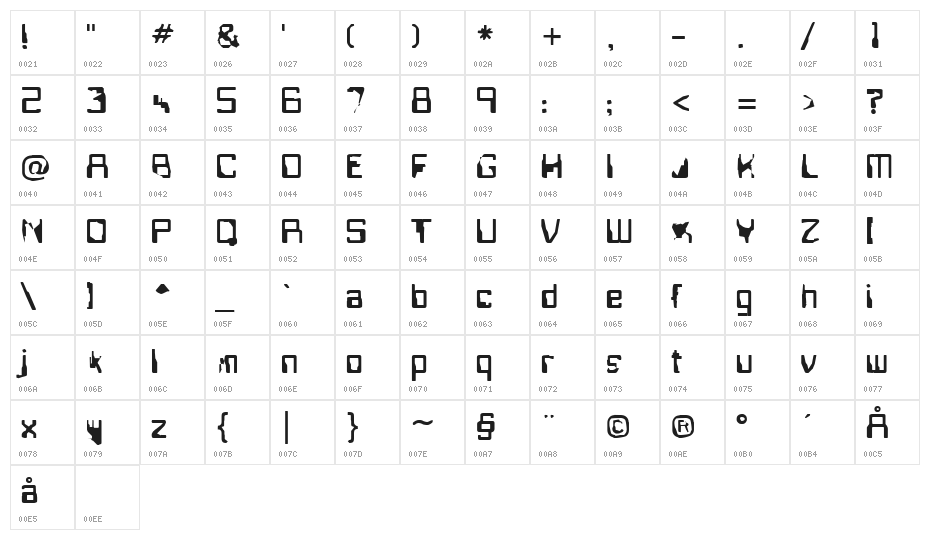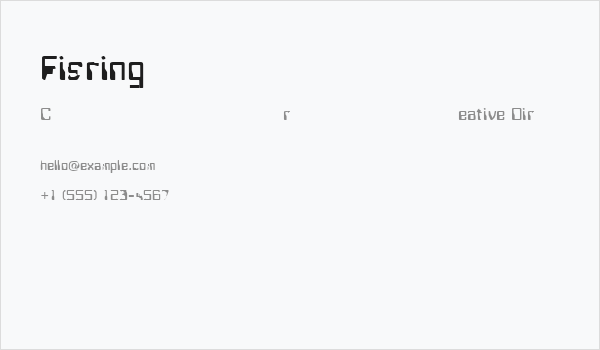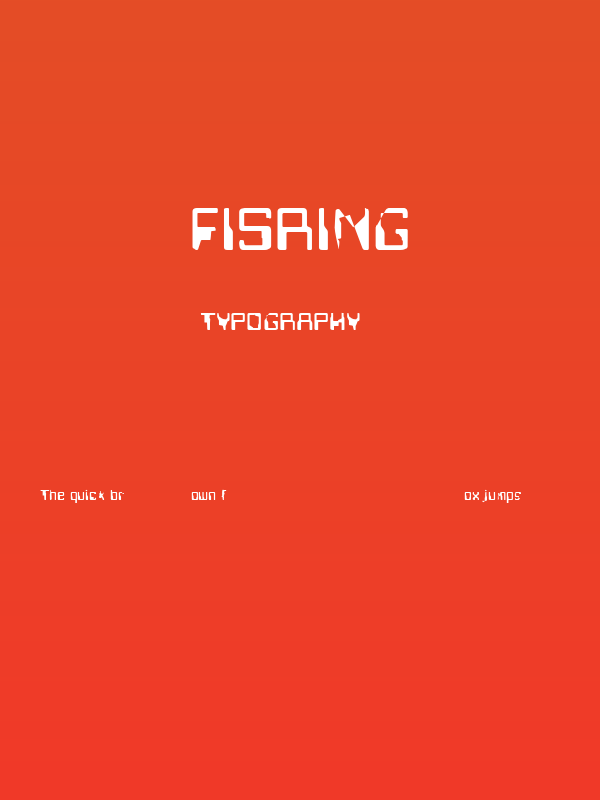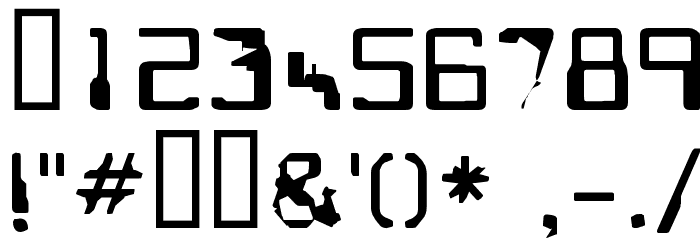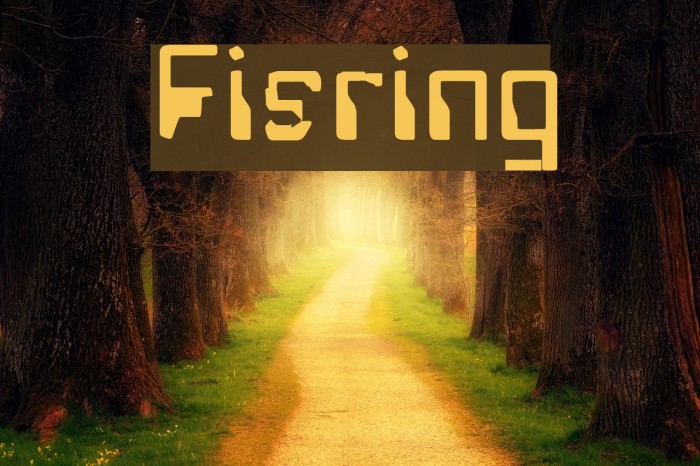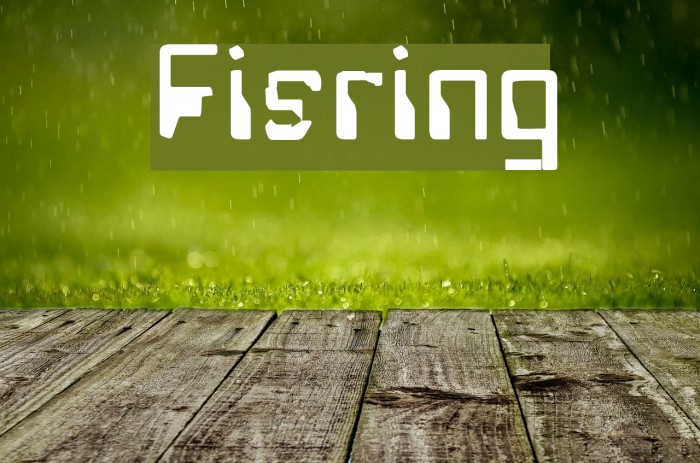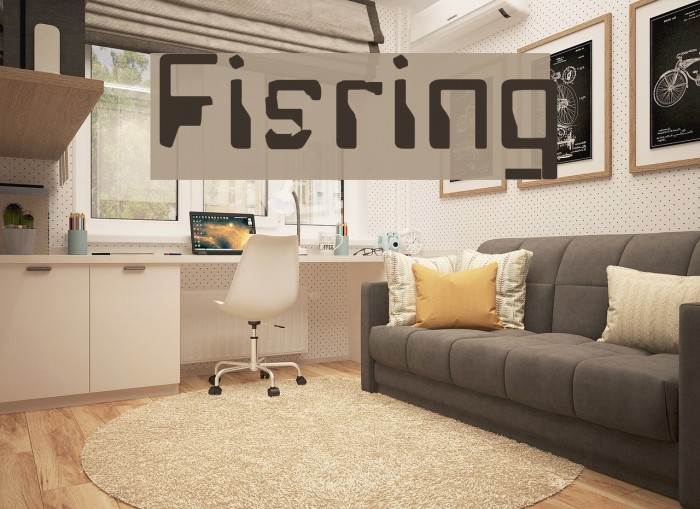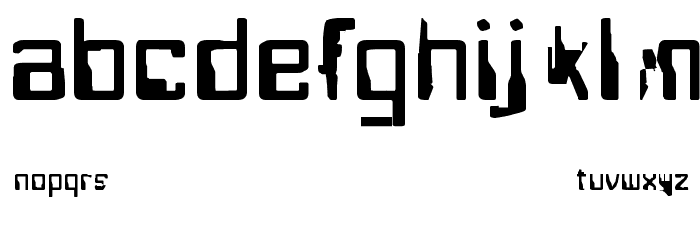
Fisring Font
Fisring Description
This font features a bold, geometric design with a distressed, grunge-like texture. The characters are blocky and angular, with irregular edges that give a rugged, industrial feel. The uppercase letters are uniform in height, while the lowercase letters maintain a consistent baseline with slight variations in height. Numbers and special characters follow the same bold, distressed style, making them stand out prominently. The overall appearance is striking and modern, suitable for projects that require a bold statement.
| Overall Style | Modern, Industrial |
| Proposed Projects | Ideal for posters, album covers, branding for edgy or industrial-themed products, and any design that requires a bold, impactful typeface. |